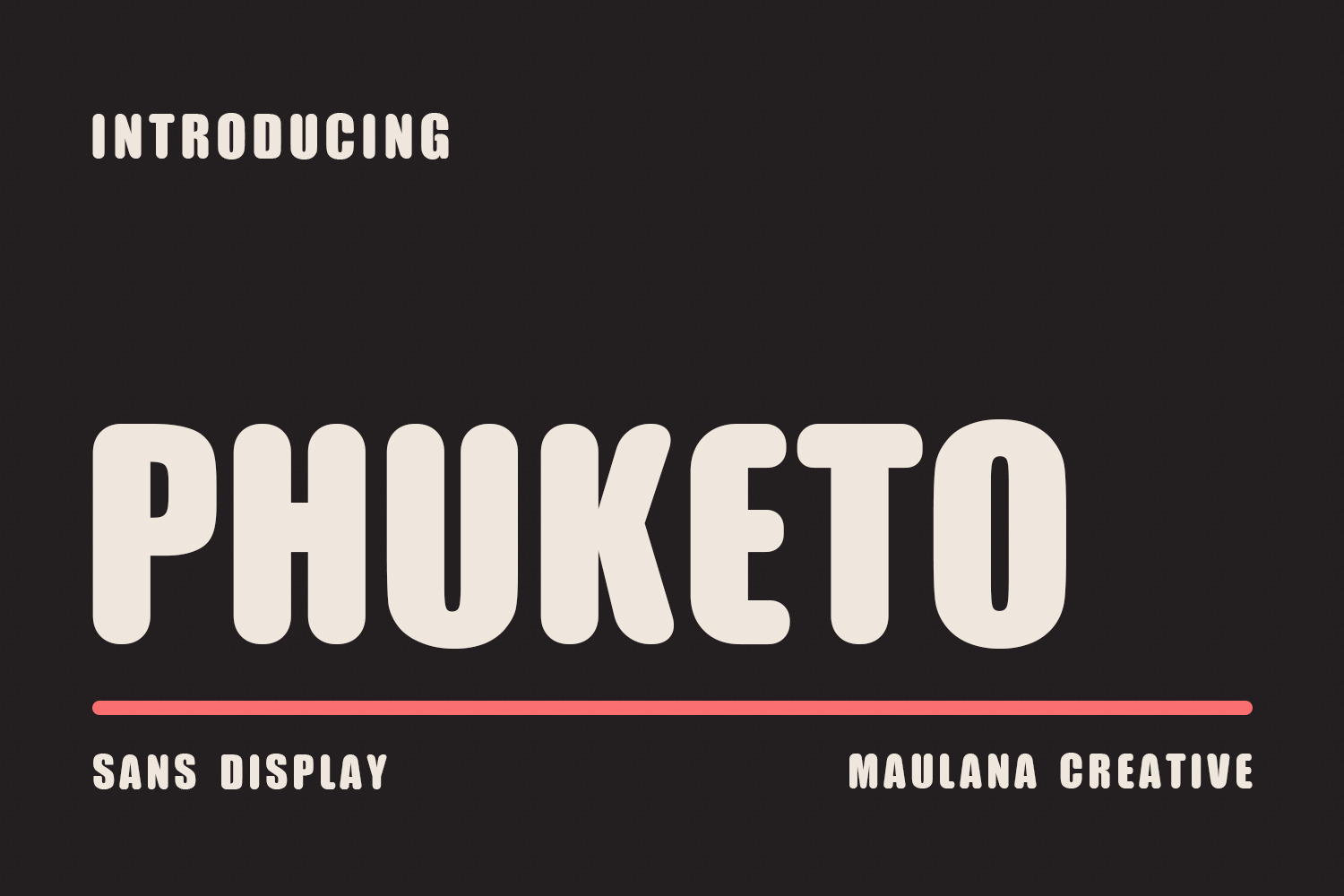
Phuketo Sans Rounded Display Font
Phuketo is a sans display rounded display font. With bold tall and sharp stroke, fun character with a bit of ligatures and alternates. To give you an extra creative work. Phuketo font support multilingual more than 100+ language. This font is good for logo design, Social media, Movie Titles, Books Titles, a short text even a long text letter and good for your secondary text font with sans or serif. Make a stunning work with Phuketo font.